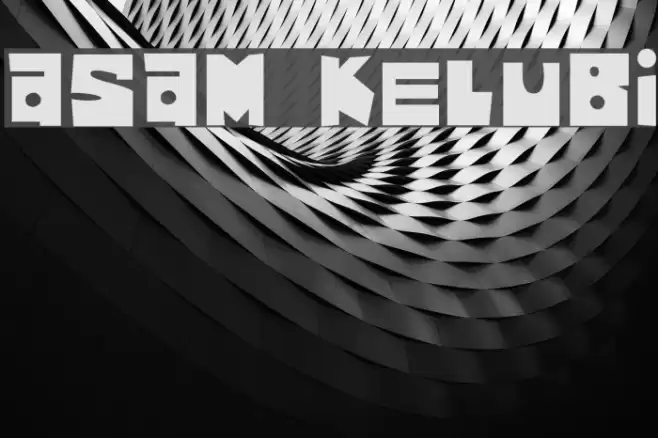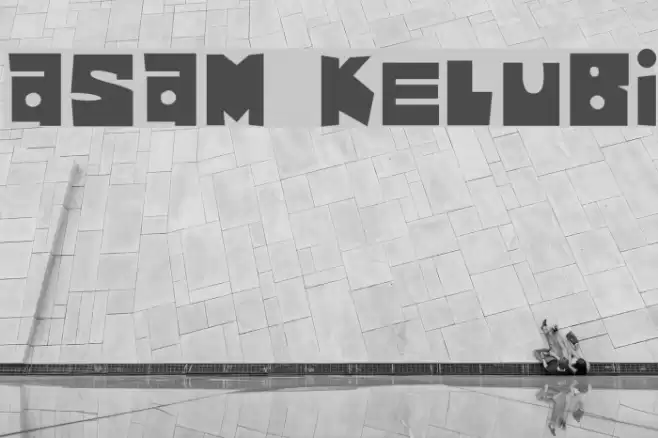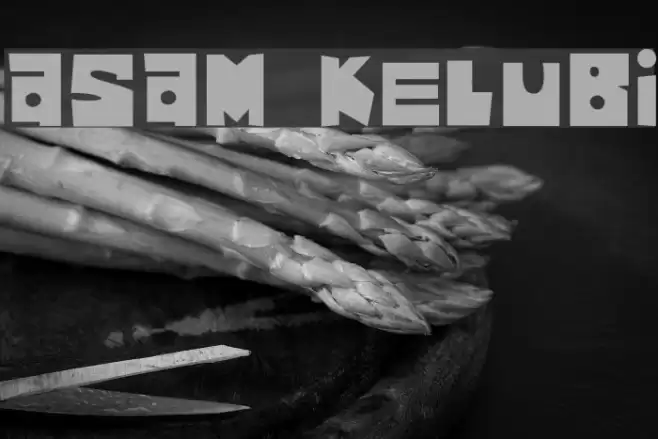
Asam Kelubi Font
Asam Kelubi Description
This font features a bold and geometric design with a playful and quirky aesthetic. The characters are constructed with sharp angles and unique cutouts, giving them a distinct and eye-catching appearance. The uppercase and lowercase letters maintain a consistent style, with a strong emphasis on angular forms and solid fills. Numbers and special characters follow the same design principles, ensuring a cohesive look across all glyphs. The font's boldness and unique style make it stand out, suitable for projects that require a strong visual impact.
A bold, geometric font with playful, angular characters from Uncategorized fonts.
- Proposed Projects: Ideal for posters, logos, branding, and any design project that requires a bold and distinctive typeface.
- Overall Style: Modern, Decorative